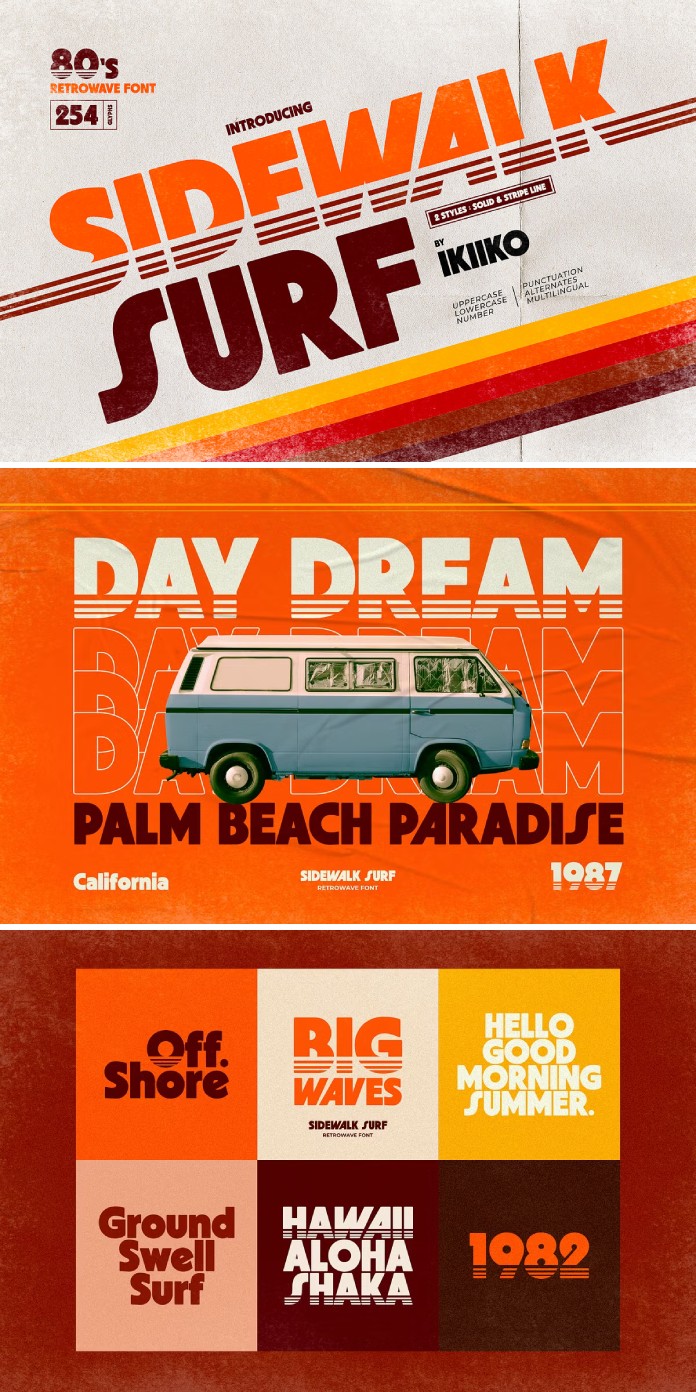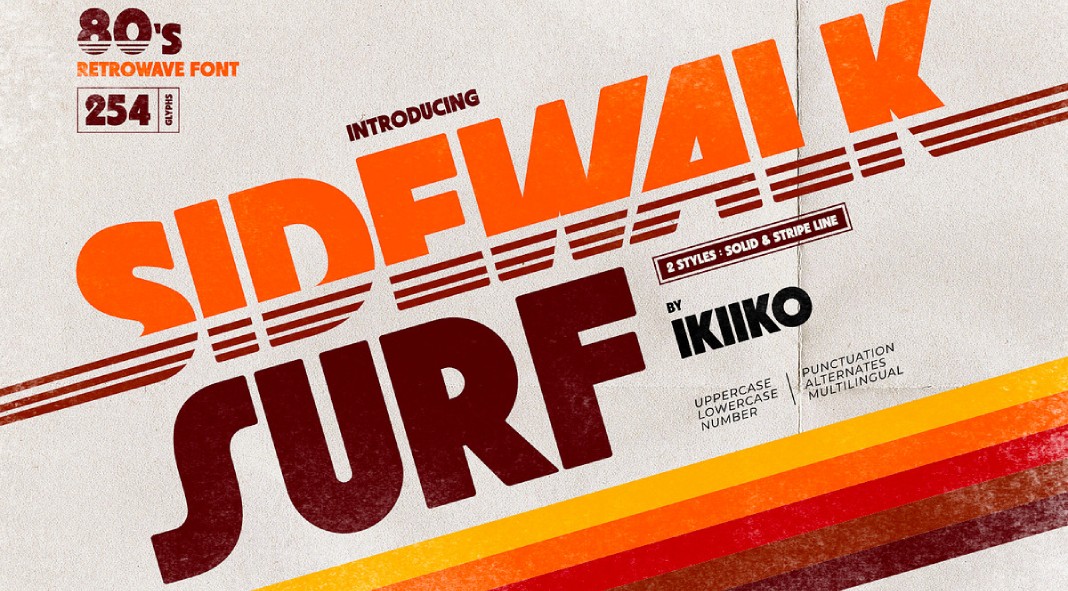
The 1980s was an era defined by its vibrant culture, electric colors, and dynamic energy. It’s a time that continues to inspire artists, designers, and creatives today. Channeling this nostalgic fervor, Sidewalk Surf, a bold and dynamic font designed by ikiiko, brings the 80s retrowave culture back to life with striking precision.
A Blast from the Past
Sidewalk Surf isn’t just a typeface; it’s a time machine that transports you to an era where neon lights, arcade games, and synthwave music reigned supreme. This font encapsulates the energetic spirit of the 80s with its bold lines and retro aesthetics, making it a perfect choice for projects that aim to evoke a sense of vintage cool. Whether you’re working on digital designs or print layouts, Sidewalk Surf promises to inject a burst of nostalgic charm into your work.
Versatile Design Options
One of the standout features of Sidewalk Surf is its versatility. It comes in two distinct styles: Solid and Stripe Line. The Solid variation offers a clean, impactful look that can anchor your design with authority, while the Stripe Line version introduces a sense of movement and dynamism, ideal for creating eye-catching visuals. Pair Sidewalk Surf with contrasting sans-serif fonts to add a modern twist, or experiment with color gradients and neon effects to fully embrace the 80s aesthetic.
Perfect for Retro Projects
Sidewalk Surf is designed with versatility in mind, making it ideal for a wide range of retro-inspired projects. It’s perfect for poster designs, magazine layouts, apparel, product packaging, quotes, or even as a stylish text overlay on background images. The font’s bold characteristics ensure that your message stands out, capturing attention and evoking the spirited essence of the 80s.
Comprehensive Features
Sidewalk Surf is not just visually appealing; it’s also highly functional. Here’s what’s included:
- Two Styles: Solid & Stripe Line
- Complete Character Set: Uppercase & Lowercase
- Numbers & Punctuation: All the essentials for any design
- Alternates: For added variety and creativity
- Multilingual Support: Designed to work seamlessly with various languages
Revive the Retro
With Sidewalk Surf, ikiiko has masterfully blended nostalgic elements with contemporary design needs. This typeface is a must-have for anyone looking to infuse their projects with a touch of retro flair. Whether you’re designing for the web, print, or any creative field, Sidewalk Surf will help you make a bold statement.